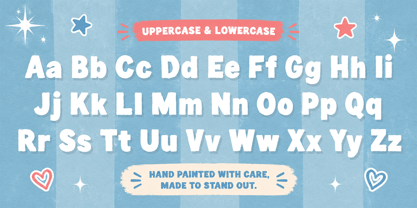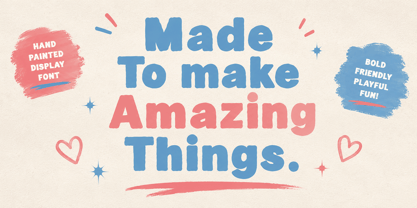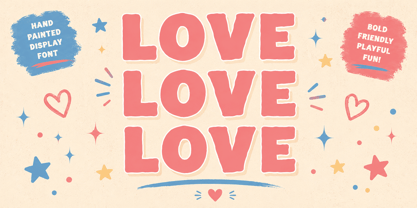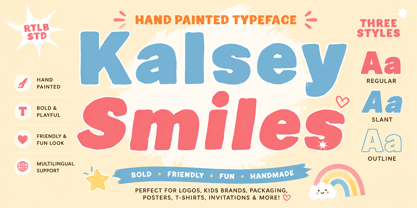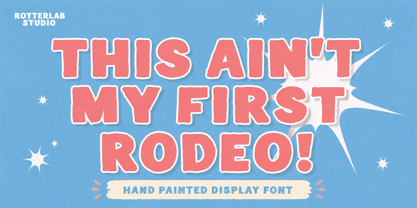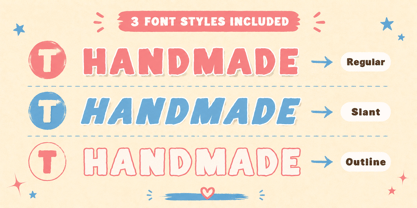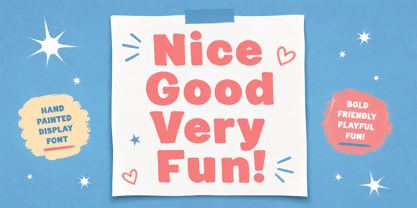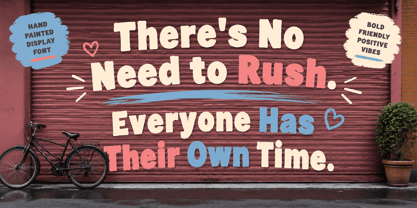
Kalsey Smiles
The Kalsey Smiles Font Family was designed by Sidiq Fahmi and published by Rotterlab Studio. Kalsey Smiles contains 3 styles and family package options. More about this family
Kalsey Smiles
A Playful Hand-Painted Typeface
Kalsey Smiles is a cheerful hand-painted display font that brings warmth, creativity, and personality to every design. Inspired by handmade brush lettering, this typeface features bold, organic shapes with a fun and friendly character, making it perfect for eye-catching designs.
Whether you're creating branding, children's products, packaging, social media posts, posters, t-shirts, invitations, or seasonal projects, Kalsey Smiles adds a unique handcrafted touch that instantly stands out.
Features:
Hand-painted display font
3 Font Styles (Regular, Slant & Outline)
Uppercase & Lowercase
Numbers & Punctuation
Multilingual Support
PUA Encoded
Bring joy, color, and creativity to your next design with Kalsey Smiles—a playful typeface made to make every project feel more fun and expressive.